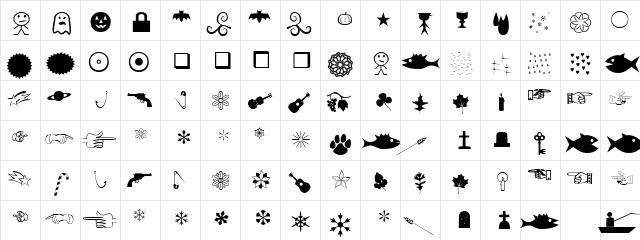
XBobsExtraPictures Regular
Design Context for XBobsExtraPictures Typeface
XBobsExtraPictures is a composed and adaptable typeface that performs quietly and consistently across a wide range of design contexts.